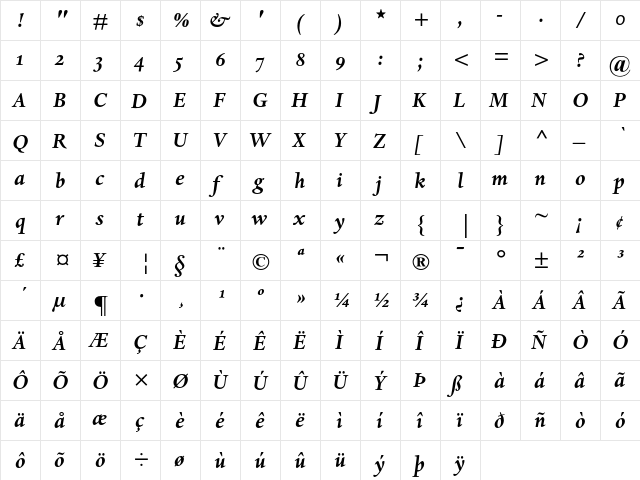
Dante MT Bold Italic Oldstyle Figures
Design Context for Dante MT Typeface
Dante MT carries the refined structure of traditional serif typography, with bracketed terminals and considered proportions that communicate credibility and craft. The dynamic lean of this cut emphasises speed and emphasis in any layout. Its bold stroke weight gives it real presence on the page.
Pro Tip: Set Dante MT with slightly loose tracking in headlines to let each letterform's detail read clearly at display sizes.